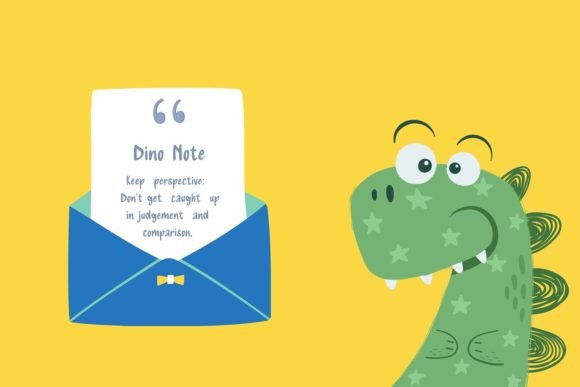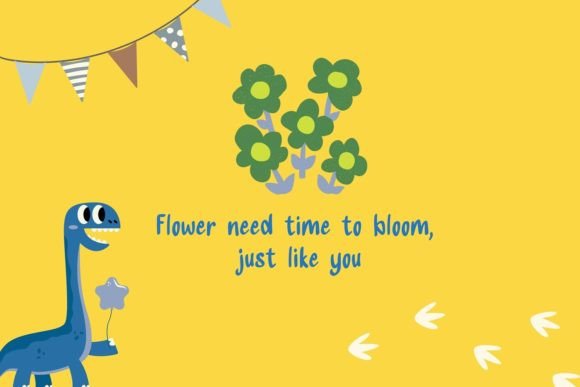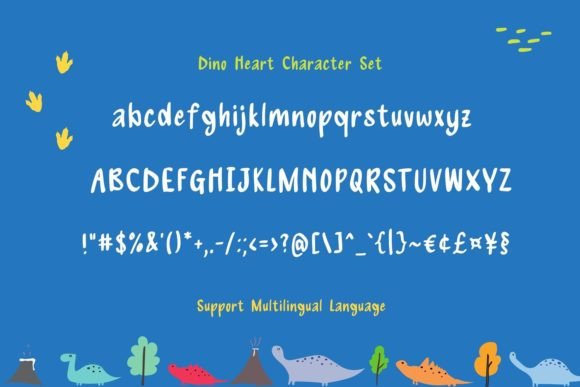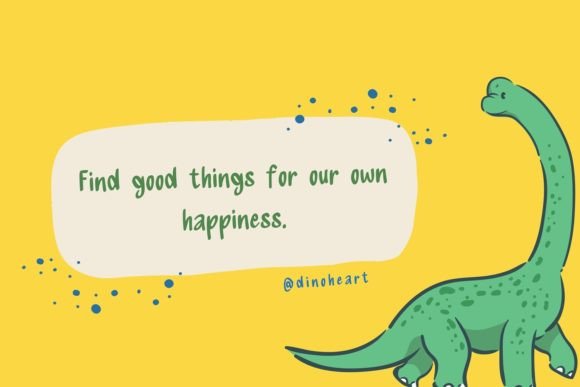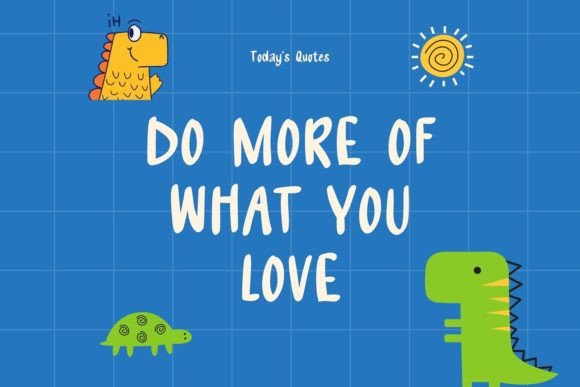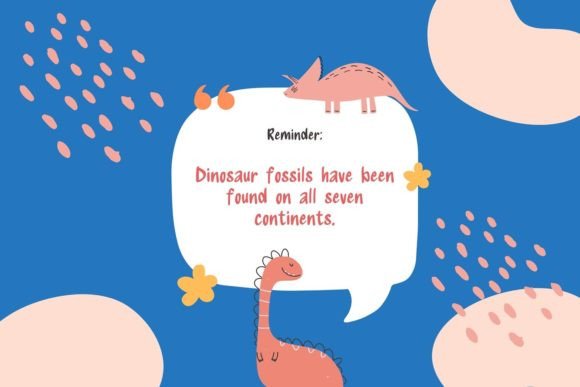
Discover the Joy of Typography: Introducing Dino Heart Font
Who hasn’t felt the rush of excitement when brainstorming a new creative project? The blank page, the endless possibilities, and the thrill of bringing an idea to life – it’s a sensation like no other. And, as any designer will attest, the right font can be the key to unlocking that magic. That’s why we’re thrilled to introduce the Dino Heart Font, a delightful new addition to the world of typography.
With its soft, rounded edges and playful structure, the Dino Heart Font is designed to add a touch of warmth and joy to any project. Whether you’re creating a children’s book, a social media campaign, or a simple greeting card, this font is sure to bring a smile to your face and a sparkle to your design. And, as a valuable resource for designers, the Dino Heart Font offers a unique opportunity to add some personality to your work and stand out from the crowd.
Dino Heart Font Key Features
- Unique Characteristics: The font features a distinctive, hand-drawn aesthetic with bold lines, rounded edges, and a playful feel, making it perfect for projects that require a whimsical touch.
Dino Heart Font Review
I recently had the chance to dive into the “Dino Heart Font” and share my honest thoughts. Here’s what I think:
- Unique style: The font has a distinct, prehistoric feel to it that can add a touch of whimsy to any design.
- Consistency: The font’s letterforms are well-designed and consistent throughout, making it easy to use in a variety of contexts.
- High-resolution: The font’s high-resolution quality makes it suitable for both digital and print designs.
- Limited character set: The font’s character set is relatively small, which may limit its use in certain applications.
- Lack of italic or bold variants: The font doesn’t offer italic or bold versions, which can make it less versatile.
- Not suitable for body text: The font’s style may be more suitable for headlines or titles, rather than body text.
Overall, I think the “Dino Heart Font” is a fun and quirky addition to any design library. While it has some limitations, its unique style and consistency make it a great choice for projects that require a prehistoric touch.
Dino Heart Font is perfect for:
Children’s book covers
Party invitations
Wedding stationery